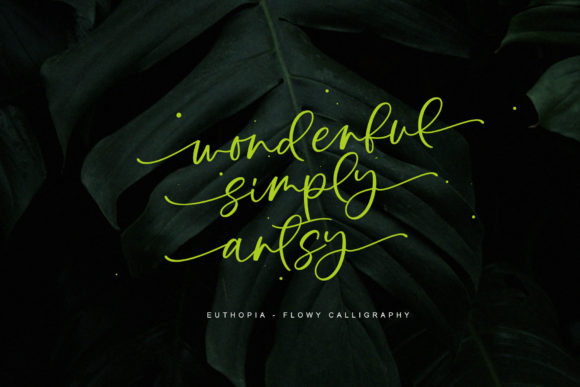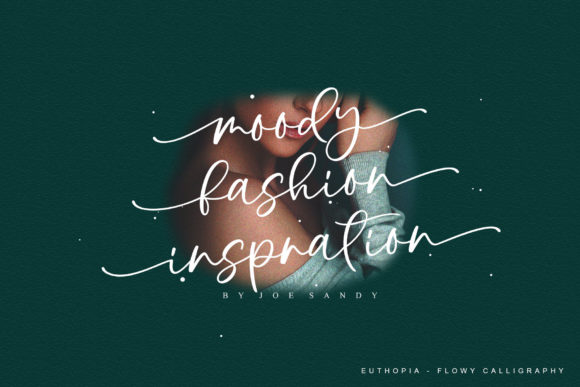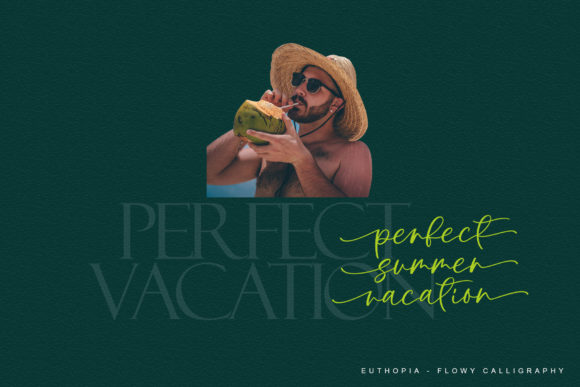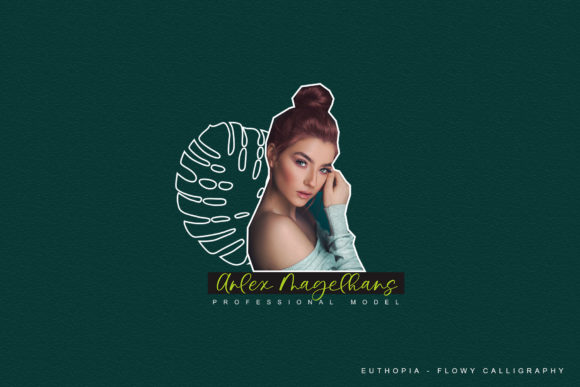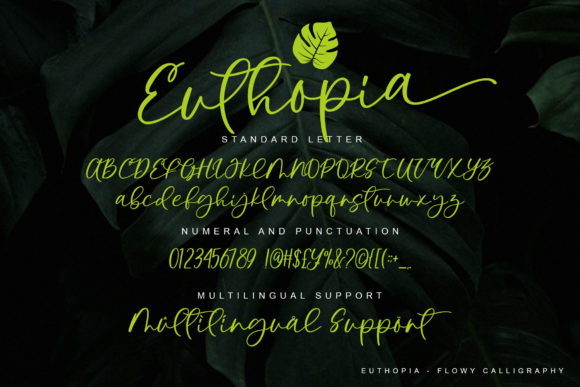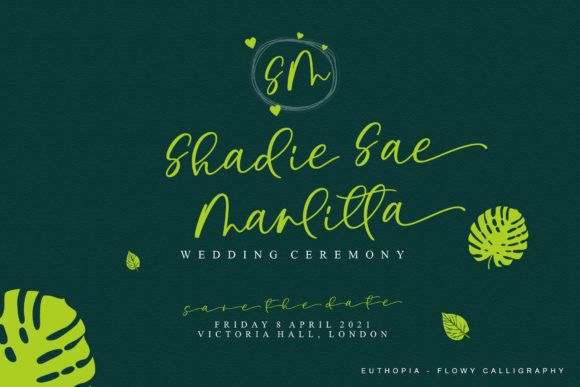
Euthopia Font: Elevate Your Designs with a Delicate, Relaxed, and Flowing Handwritten Style
In the world of typography, fonts play a crucial role in bringing creative ideas to life. Among the numerous font styles available, handwritten fonts have gained immense popularity for their unique and personal touch. One such font that has caught the attention of designers and crafters is Euthopia. In this article, we’ll explore the features and benefits of Euthopia Font, and how it can elevate your designs to new heights.
What is Euthopia Font?
Euthopia is a delicate, relaxed, and flowing handwritten font that exudes a sense of elegance and sophistication. Its beautiful and well-balanced characters make it an ideal choice for a wide range of designs, from creative projects to commercial applications. The font’s unique style is characterized by its smooth, cursive lines and gentle curves, which give it a soothing and calming effect.
Key Features of Euthopia Font
- Delicate and Relaxed: Euthopia’s font style is designed to be delicate and relaxed, making it perfect for designs that require a subtle and understated approach.
- Flowing Handwritten Style: The font’s flowing handwritten style gives it a personal and human touch, making it ideal for designs that require a more organic and natural look.
- Well-Balanced Characters: Euthopia’s characters are carefully crafted to be well-balanced, ensuring that the font looks great in various sizes and applications.
- Versatile: The font’s unique style makes it suitable for a wide range of designs, from creative projects to commercial applications.
Benefits of Using Euthopia Font
Euthopia Font offers several benefits to designers and crafters, including:
- Unique and Eye-Catching: Euthopia’s distinctive style makes it stand out from other fonts, adding a unique touch to your designs.
- Easy to Read: The font’s clear and legible design ensures that your text is easy to read, even in smaller sizes.
- Time-Saving: With Euthopia, you can quickly create stunning designs without spending hours on typography.
- High-Quality: The font is crafted with high-quality standards, ensuring that it looks great in various applications.
How to Use Euthopia Font in Your Designs
Using Euthopia Font in your designs is easy and straightforward. Here are some tips to get you started:
- Pair it with Other Fonts: Euthopia pairs well with other fonts, so feel free to experiment with different combinations to create a unique look.
- Use it for Headings and Titles: The font’s elegant style makes it perfect for headings and titles, adding a touch of sophistication to your designs.
- Add it to Your Branding: Euthopia can be used in branding applications, such as logos, business cards, and letterheads, to create a consistent and professional look.
- Experiment with Colors and Textures: The font’s delicate style allows it to work well with various colors and textures, so don’t be afraid to experiment and find the perfect combination.
Euthopia Font is a beautiful and versatile handwritten font that can elevate your designs to new heights. Its delicate, relaxed, and flowing style makes it perfect for a wide range of applications, from creative projects to commercial designs. With its unique features, benefits, and ease of use, Euthopia is an excellent addition to any designer’s or crafter’s toolkit. So, add Euthopia to your most creative ideas and watch them come alive!